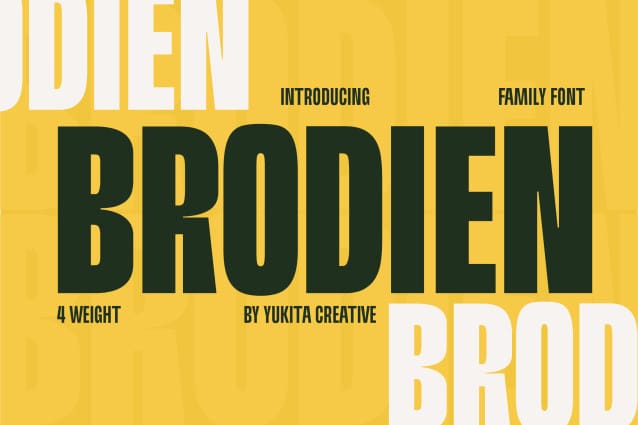
Brodien Condensed Font
Brodien Condensed Font is an attractive and versatile font, with its four weights offering wide design flexibility. With a clean and modern feel, this font is suitable for a variety of graphic design projects, from logo designs to marketing materials. Whether you’re crafting sleek corporate branding or eye-catching advertisements, BrodienCondensed has you covered with its range of weights and modern aesthetic.